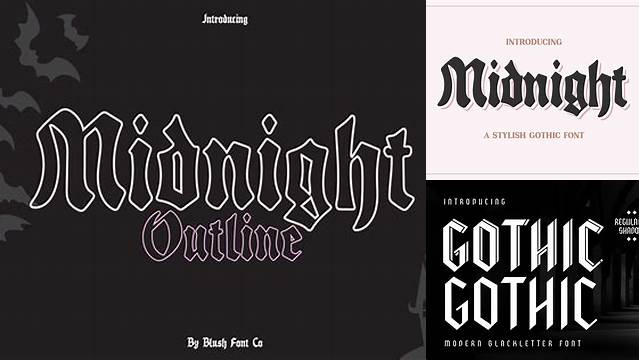
Midnight Modern Gothic Font: Free Download & Design Guide
Hey guys! Are you on the hunt for a font that perfectly blends the sleekness of modern design with the captivating allure of gothic aesthetics? Look no further! The Midnight Modern Gothic font might just be the missing piece in your creative puzzle. This font style is a unique typeface that has been gaining traction in the design world, especially among creatives aiming for a bold yet sophisticated look. In this comprehensive guide, we will dive deep into what makes this font so special, where you can find it for free, and how to effectively use it in your projects. So, grab your favorite beverage, get comfy, and let's explore the world of Midnight Modern Gothic!
What is Midnight Modern Gothic Font?
When we talk about the Midnight Modern Gothic font, we're describing a typeface that beautifully marries the clean lines and geometric shapes of modern fonts with the intricate and slightly edgy characteristics of gothic lettering. Think of it as a contemporary twist on classic gothic, making it versatile enough for a wide range of applications. Its unique appeal lies in its ability to evoke a sense of mystery and elegance, perfect for designs that need to make a strong visual statement. The distinctive letterforms often feature sharp angles, elongated strokes, and a high contrast between thick and thin lines, creating a visually striking effect. This font style stands out due to its dramatic flair and readability, making it suitable for headlines, branding materials, posters, and even digital designs. The Midnight Modern Gothic font is not just a typeface; it's a design tool that can instantly add character and sophistication to your work. The fusion of modern and gothic elements ensures that this font remains timeless while still feeling fresh and contemporary. Its balanced aesthetic makes it a favorite among designers who want to achieve a balance between tradition and innovation. It is important to note that various interpretations and versions of this font exist, each with subtle differences in design. Some may lean more towards the gothic side, featuring more elaborate details, while others might emphasize the modern aspects, resulting in a cleaner and more minimalist look. This variability allows designers to choose the version that best fits their specific needs and preferences. Overall, the Midnight Modern Gothic font is a powerful asset for any designer looking to make a lasting impression with their typography.
How to Use Midnight Modern Gothic Font in Your Designs
Now that you've snagged your free Midnight Modern Gothic font, let’s talk about how to wield its power effectively in your designs. This font is a statement-maker, so it’s crucial to use it judiciously to achieve the desired impact. First and foremost, consider the context of your project. The Midnight Modern Gothic font is ideal for designs that aim to convey a sense of sophistication, mystery, or edginess. Think branding for high-end boutiques, posters for alternative music events, book covers in the thriller or fantasy genres, or even websites with a dark and elegant theme. It’s particularly effective for headlines and titles, where its bold and distinctive letterforms can instantly grab attention. However, avoid using it for large blocks of body text, as its intricate design can become tiring to read in lengthy paragraphs. Pair this font wisely. Given its strong personality, it’s best to combine it with simpler, more neutral fonts for body text. A clean sans-serif or a classic serif font can provide a pleasing contrast, ensuring readability while still allowing the Midnight Modern Gothic to shine. Experiment with different font pairings to find the perfect balance for your design. Think about the color palette you're using as well. The Midnight Modern Gothic font often works best with darker, more dramatic color schemes, such as blacks, grays, and deep blues or purples. Metallic accents like gold or silver can also enhance its elegance. However, don’t be afraid to experiment with brighter colors if your design calls for it, but make sure the overall aesthetic remains cohesive. In terms of size and spacing, pay close attention to kerning and leading. Adjust the spacing between letters and lines to ensure optimal readability and visual appeal. Too little spacing can make the text look cramped, while too much can dilute its impact. Also, consider the weight and style of the font. Variations like bold, italic, or condensed can add further dimension to your design, but use them sparingly to avoid overwhelming the viewer. Finally, remember the principle of “less is more.” The Midnight Modern Gothic font is a powerful tool, but it’s not always the answer. Sometimes, the most effective designs are those that use it selectively, allowing its unique characteristics to truly stand out. By keeping these tips in mind, you’ll be able to harness the full potential of this captivating typeface and create designs that are both striking and sophisticated.
Examples of Effective Use
To truly appreciate the versatility of the Midnight Modern Gothic font, let’s explore some real-world examples of how it can be used effectively in various design projects. Imagine a high-end fashion brand looking to create a logo that exudes both modernity and a touch of mystique. The Midnight Modern Gothic font would be an excellent choice for the brand’s name, instantly conveying a sense of sophistication and exclusivity. Paired with a minimalist sans-serif font for the tagline and a sleek, monochrome color palette, the overall branding would feel both contemporary and timeless. Another compelling example is in the realm of book cover design. For a thriller or gothic horror novel, this font can set the perfect tone. Envision the title rendered in Midnight Modern Gothic, perhaps with a subtle texture or a slight shadow effect, placed against a dark, atmospheric background. The font’s sharp lines and dramatic flair would immediately draw the reader in, hinting at the suspenseful narrative within. In the music industry, consider a band or artist in the alternative or metal genres. Using this font on album artwork, posters, and promotional materials can create a strong visual identity. The edgy yet elegant nature of the font complements the rebellious spirit often associated with these genres, while still maintaining a sense of artistry. For event posters, the Midnight Modern Gothic font can be used to create a striking headline that grabs attention. Think of a poster for a Halloween party or a gothic-themed event; the font’s unique aesthetic perfectly aligns with the event’s atmosphere, setting the mood and enticing potential attendees. In the digital space, this font can be used to enhance website headers and banners, particularly for sites that aim for a sophisticated or edgy feel. A website for a luxury product or a creative agency, for instance, could benefit from the font’s distinctive style. However, it’s crucial to ensure that the font is used sparingly and paired with more readable fonts for body text to maintain a user-friendly experience. These examples highlight the Midnight Modern Gothic font’s ability to add character and impact to a wide range of designs. By understanding its strengths and using it strategically, you can create visually stunning projects that leave a lasting impression.
Tips for Pairing Midnight Modern Gothic with Other Fonts
One of the key skills in typography is the art of font pairing. When working with a distinctive font like Midnight Modern Gothic, choosing the right companion fonts is crucial to create a harmonious and visually appealing design. The goal is to balance the bold personality of the Midnight Modern Gothic font with fonts that complement it without competing for attention. Here are some tips to guide you in pairing this unique typeface effectively. First, consider the principle of contrast. Since Midnight Modern Gothic is a display font with a strong character, it’s often best paired with simpler, more neutral fonts for body text. This contrast creates visual interest and ensures that the overall design remains readable. A classic sans-serif font, such as Helvetica, Arial, or Open Sans, can provide a clean and modern counterpoint to the gothic flair of Midnight Modern Gothic. These fonts are highly legible and won’t distract from the headlines or titles set in the more decorative font. Alternatively, a traditional serif font, like Times New Roman, Garamond, or Georgia, can also work well. Serifs add a touch of elegance and formality, which can complement the gothic aesthetic in a sophisticated way. However, it’s important to choose a serif font that isn’t too ornate, as this could clash with the Midnight Modern Gothic font’s intricate details. When selecting a secondary font, think about the overall tone and message of your design. If you’re aiming for a modern and minimalist look, stick with a clean sans-serif. If you want to evoke a more classic or traditional feel, a serif might be the better choice. Experiment with different weights and styles within the font family. For example, if you’re using Open Sans as your body text font, try a lighter weight to further enhance the contrast with the bolder Midnight Modern Gothic. You can also use different styles, such as italic or bold, to add emphasis to certain words or phrases. Another tip is to limit the number of fonts you use in a single design. Sticking to two or three fonts at most will help maintain a cohesive and professional look. Overusing fonts can create a cluttered and confusing visual hierarchy. Lastly, pay attention to the visual hierarchy and readability. Ensure that the Midnight Modern Gothic font is used sparingly for headlines and titles, while the simpler font is used for the main body of text. This will help guide the reader’s eye and make your content more accessible. By following these tips, you can create stunning font pairings that showcase the beauty of the Midnight Modern Gothic font while maintaining a balanced and effective design.
In conclusion, the Midnight Modern Gothic font is a fantastic choice for designers looking to add a touch of edgy elegance to their projects. Its unique blend of modern and gothic styles makes it incredibly versatile, suitable for everything from branding and book covers to posters and websites. By understanding its characteristics and following the tips outlined in this guide, you can effectively incorporate this font into your designs, creating visually striking and memorable results. Remember to explore the various resources available online to find free versions of the font, and always double-check the licensing terms to ensure you’re using it appropriately. Experiment with different pairings and color schemes to discover the perfect aesthetic for your project. And most importantly, have fun and let your creativity shine! The Midnight Modern Gothic font is a powerful tool, but it’s your artistic vision that will truly bring it to life. So go ahead, give it a try, and watch how this captivating typeface transforms your designs!